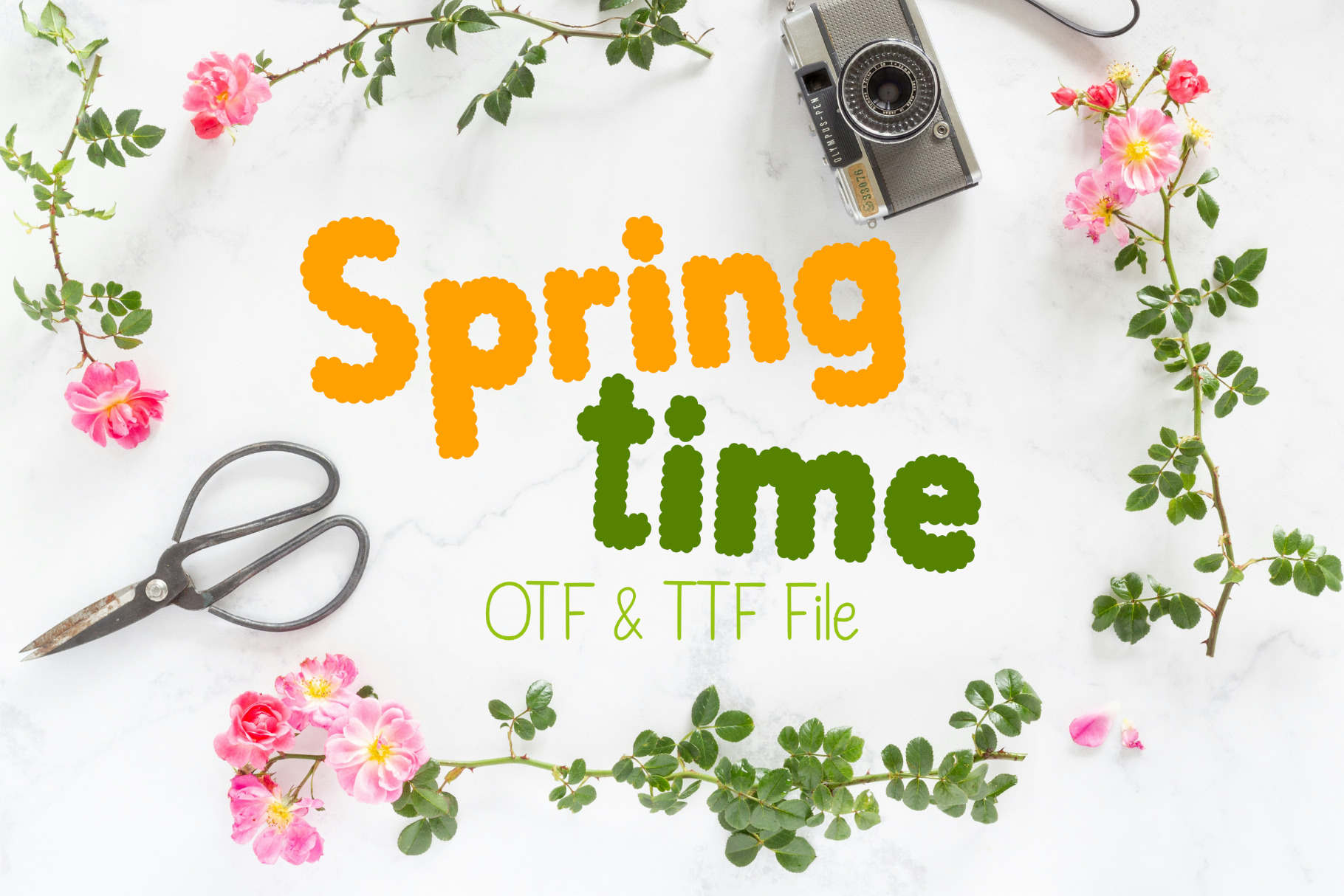
Springtime Font
Springtime Font is a fancy decorative font that has a bush in the shape of each letter. This font is perfect for your fun projects, flower theme projects or personal projects. From invitations to posters, social media graphics, and much more.